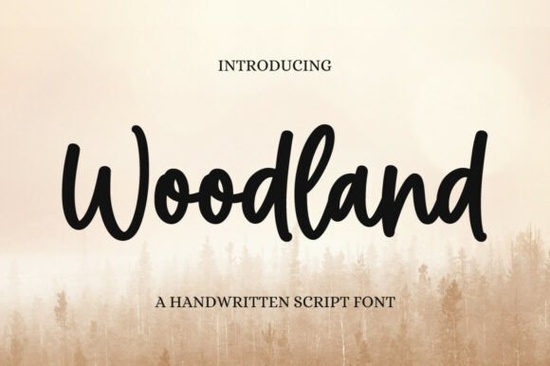
Woodland Font is a great choice for anyone looking to add a touch of nature and elegance to their design projects. This handwritten script font has a unique style that feels both personal and professional, making it perfect for a variety of applications. Whether you're working on branding, stationery, or photography overlays, Woodland offers a fresh and modern approach to traditional cursive.
One of the standout features of Woodland is its tall, slender anatomy and gentle flow. The strokes are clean and ink-style, giving the font a minimalist yet expressive look. This makes it ideal for designs that aim to convey simplicity and warmth. The font’s organic lines and earthy energy make it a strong fit for sustainable brands, travel blogs, and lifestyle content.
If you're looking for a font that can bring a human touch to your work, Woodland is an excellent option. Its serene and rhythmic style helps create a sense of calm and authenticity. This is especially useful for projects that want to connect with audiences on a more personal level. The versatility of Woodland means it can be used in both digital and print formats without losing its charm.
How to Use Woodland Font in Your Projects
Woodland Font works well in a range of design scenarios. For example, it's a popular choice for minimalist branding because it adds a soft, elegant feel without being too bold. It also pairs nicely with other fonts, making it easy to create balanced layouts. If you're designing for a lifestyle blog or a small business, this font can help you maintain a cohesive and inviting visual identity.
For print-on-demand sellers, Woodland offers a unique way to stand out. Its handwritten style gives products a custom feel that many customers appreciate. You can use it for T-shirt designs, greeting cards, or packaging to create a more personal connection with your audience. The font’s clarity ensures it remains readable even at smaller sizes, which is important for practical applications.
Why Choose Woodland Over Other Fonts?
Compared to other script fonts, Woodland stands out for its balance of style and usability. Many similar fonts can be difficult to read or too ornate for certain projects. Woodland, however, maintains a clean and modern aesthetic while still retaining the warmth of a handwritten style. This makes it a reliable choice for designers who want to keep their work professional yet approachable.
Another advantage of Woodland is its adaptability. It can be used in both casual and formal settings, depending on how it's styled. For instance, pairing it with a sans-serif font can create a contemporary look, while using it with a serif font might give a more traditional feel. This flexibility allows you to experiment with different design styles without needing multiple fonts.
Whether you're a designer, crafter, or small business owner, Woodland Font offers a fresh and versatile option for your creative projects. Its natural, handwritten style adds a sense of warmth and authenticity that can elevate your designs in a subtle yet meaningful way.
Before finalizing your design, take some time to test Woodland in different contexts. This will help you understand how it performs in various sizes and backgrounds. You can also experiment with different color combinations to see what best highlights its unique qualities. With a little exploration, you’ll find that Woodland can become a valuable addition to your design toolkit.